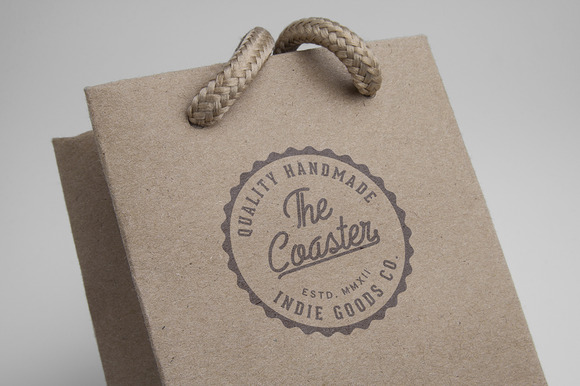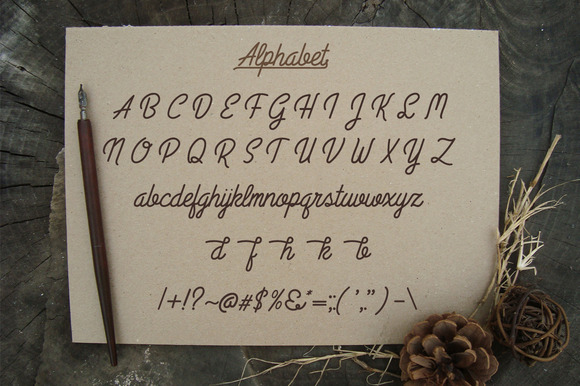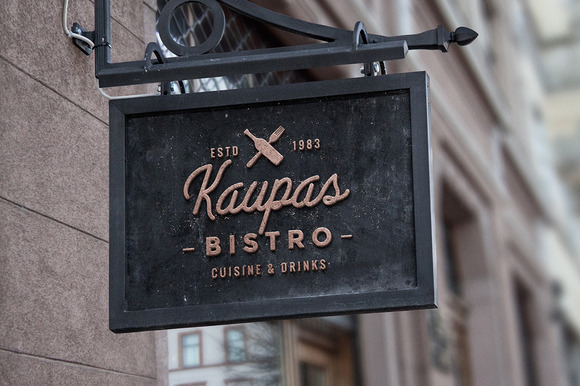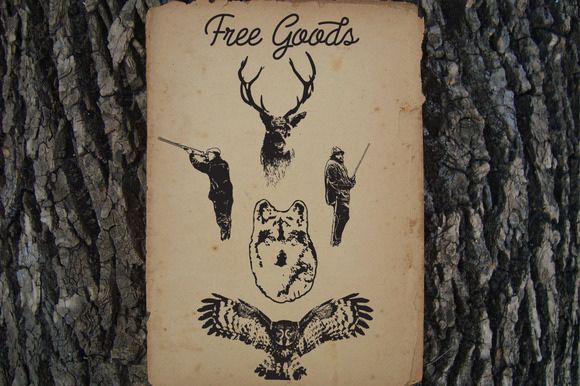
HomeScript FontsAuthentic Font Script Fonts Authentic Font FacebookXPinterestWhatsApp Authentic Font Poster 2 Authentic Font Poster 3 Authentic Font Poster 4 Authentic Font Poster 5 About Authentic Font About the Authentic Font Authentic is a beautiful hand-crafted script font. Authentic is inspired by nature. DOWNLOAD ON CREATIVE FABRICAThis font is sold and delivered by Creative Fabrica. Font Canyon may earn a commission if you buy through this link. People also explored Dream Girl Font Kazincbarcika Font Tacunos Font Right Away Font First Valentine Font Aline – Handwritten Font Beone Extra Bold Font Black Friday So Hot Font 283 0 TagsAuthentic Font Previous articleBurning Daylight FontNext articleRosemary Font LEAVE A REPLY Cancel reply Comment: Please enter your comment! Name:* Please enter your name here Email:* You have entered an incorrect email address! Please enter your email address here Website: Save my name, email, and website in this browser for the next time I comment. Personal Use Free Ontel Personal Use Free Read more about this font Cintya Personal Use Free Read more about this font Rumaniaya Personal Use Free Read more about this font Bakk Trieng Personal Use Free Read more about this font BLOG The 10 Best Handwriting Fonts to Add Personality to Your Designs 10 of the Best Handwriting Fonts for Adding Personality to Your Designs There will undoubtedly be no other better choice than handwriting fonts to give... Best Fonts for T-Shirt Design – Top 2025 Picks Transform Your Website: Elevate Your Typography with 7 Best Web Font Generators Fonts That Capture the Spirit of New York City